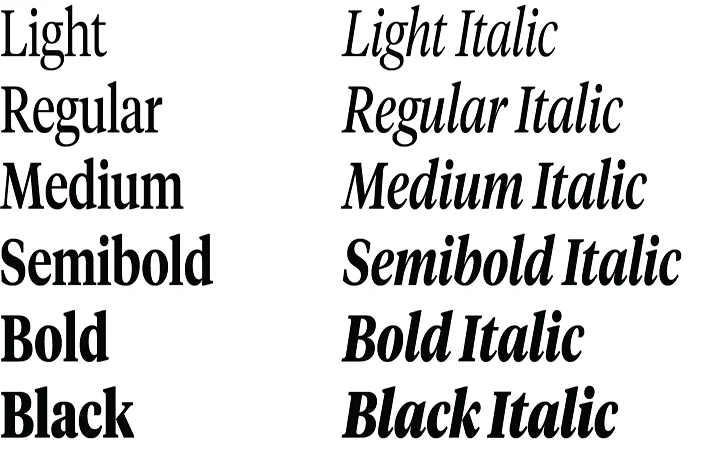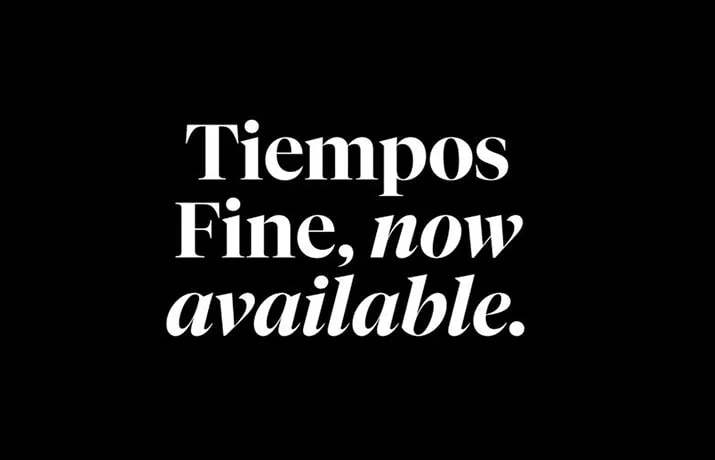
Tiempos Font is a modern serif typeface that comes with a classic design. It features a clean-cut lettering design that allows you to show off elegance and class.
A New Zealand-based designer Kris Sowersby took the charge of designing and sharing it for the first time.
This is a companion typeface that has been heavily influenced by Times New Roman, especially in the italic variant. You can see this serif font slowly in the font lettering picture that we attach here.
Different designers are using it for their various tasks such as headlines and long text paragraphs. Therefore, there is no doubt that it will definitely affect your plans in a very positive way.
It comes in 12 unique styles. Including Regular, Regular Italic, Light, Light Italic, Medium, Medium Italic, Semibold, Semibold Italic, Bold, Bold Italic, Black, and Black Italic.